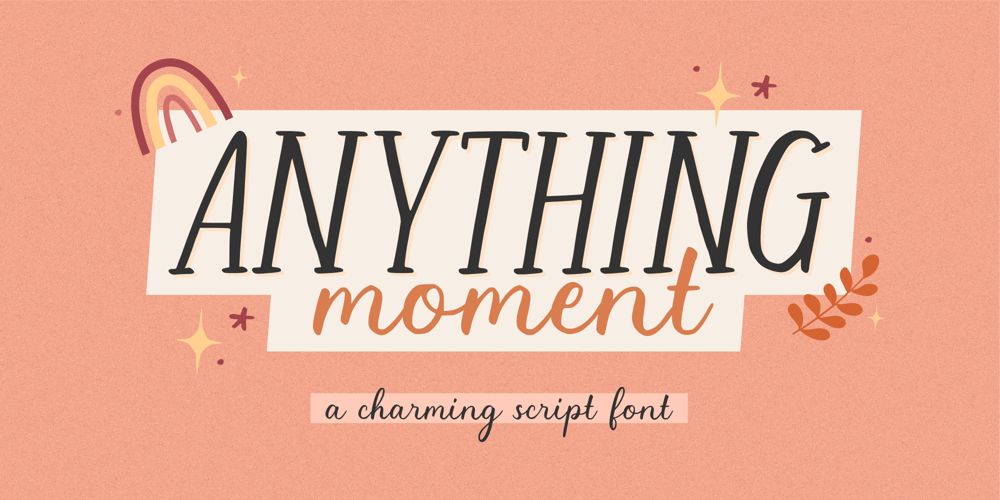
Anything Moment Font Family was designed by Fachrizal Yusuf and published by Allouse Studio. Anything Moment contains 1 styles and family package options. Proudly Presenting, Anything Moment A Charming Script Font.Anything Moment is perfect for any titles, logo, product packaging, branding project, megazine, social media, wedding, or just used to express words above the background.Anything Moment also come with Multi-Lingual Support.Enjoy the font, feel free to comment or feedback, send me PM or email. Thank You!